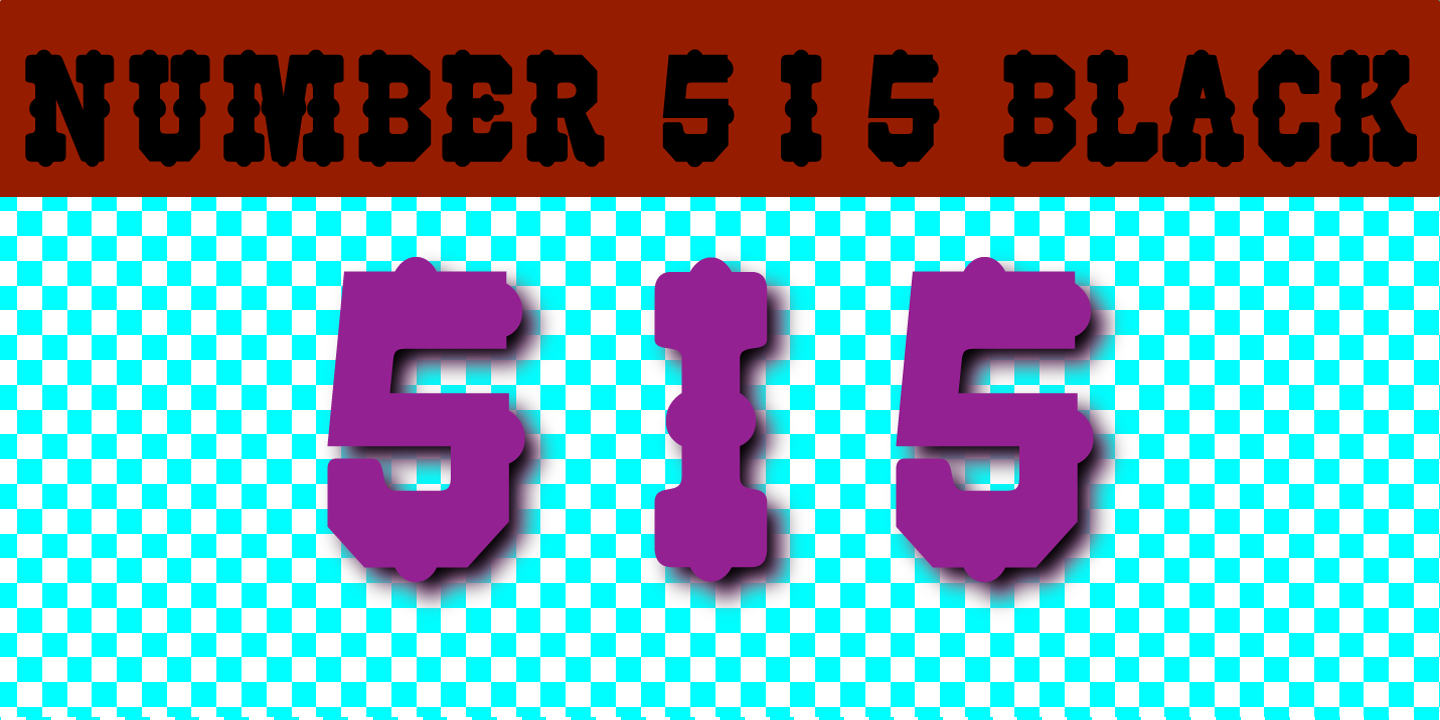
NUMBER 515
Designed by Jordan Davies, Number 515 is a multiple classification font family published by Wooden Type Fonts.
A design from the late 19th century based on wooden type, largely used for circus posters. A lower case was not designed for this face as it was almost exclusively used for large format posters and almost never for text. Featuring very large bulbous serifs, rather unusual.